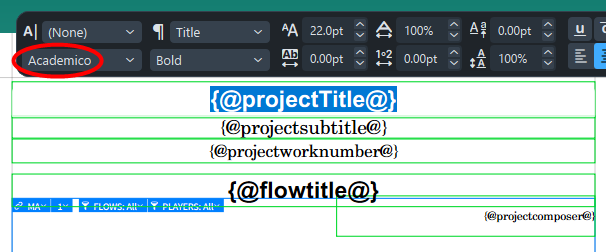
Since I installed Dorico 6, the Project and Flow titles in both Dorico 5 and Dorico 6 no longer appear in Academico, but in a sans serif font. The same happens with Gradual and Immediate Tempo Text.
When I open the file on my laptop, where Dorico 6 is not yet installed, everything appears normally in Academico.
I have a similar font issue with the Nepomuk font not showing any lower-case letters except in Italic. Regular shows only upper-case letters for that particular font. Itās been my default text font in Dorico for years now.
Iād suggest disabling/removing the SC versions of Nepomuk, as you can access the OpenType features now in the standard fonts. Then restart.
Yes, on Windows. After restarting the computer all is fine. For some reason it seems to be necessary to restart the computer after installing Dorico 6. I donāt remember this being the case with previous upgrades. Thanks, benwiggy!
In my case, deleting the SC versions, then rebooting, did nothing. Iām still getting all caps versions of Nepomuk.
From what I understand, itās more to do with Windows caching and handling of newly installed fonts.
Still not solved for me.
I re-installed the very latest version of the Nepomuk font, rebooted the computer (twice) and am still getting all-caps only on the āregularā version of the font. The font works fine in my other programs (word processor, layout software, publishing software, etcā¦) but for some reason, Dorico refuses to see the āregularā version of the font and only sees the small-caps version, or the Italic version.
Have you tried removing the Nepomuk SC font from your system? As @benwiggy said earlier in the thread, you donāt need it.
Iāve done that, and Iām still getting all caps when I use Nepomuk.
(and yes, I mentioned removing the SC versions of my fonts earlier in this thread)
Could the Paragraph Style be set to All Caps?
nope, itās set to regular.
Iām not sure if this issue is related, but in the Missing Fonts dialog Dorico 6 is telling me that some font styles were used in an earlier project that actually do not exist on my Windows system (e.g. only Regular is installed; Bold doesnāt exist):
But when I open this project in Dorico 5 and browse for the fonts used, I see that this particular font style is shown as available and freely selectable:
So, I opened the Character Map UWP app (an enhanced version of Windows Character Map), and it lists this font as only existing in a Regular style, but that three āSimulatedā styles, whatever that is, are available: Oblique, Bold and Bold Oblique. These Simulated styles no longer show in Dorico 6 and only the actual installed font style is shown and selectable.
This is super confusing, Iād love to understand whatās happening, if possible.
Thereās a bit about this in the Version History (and in the SN review).
Windowsā font management is very weird, to say the least. As youāll know, it insists that every font only has four styles: Regular, Bold, Italic, Bold Italic. Any other styles are counted as separate fonts, which each must have their own obligatory four styles. If a font doesnāt have all those four styles, Windows āsimulatesā them. (e.g. thickens all the strokes, or slants the characters).
Dorico 6 has decided to āenforceā a more Mac way of listing fonts, so that āMinion Bold Condensed Caption Italicā is the āBold Condensed Caption Italicā style of āMinionā, rather than the Bold Italic style of āMinion Condensed Captionā. (Or something.)
This makes moving files between iPad, Mac and Windows much easier. It also prevents problems in PDFs. But it also means that you canāt use simulated styles.
From what I can tell, there is no Bold font of Theano Modern. You may want to try the free font family āOld Standardā, which is similar (possibly by the same author), and which has a Bold and Italic.
Thanks, this is very helpful! This is a good opportunity to replace and updates fonts (such as this one, that I no longer use).
I would guess that simulated styles are what apps like Word and Excel and PowerPoint use on Windows to create Bold, Italic etc when those styles are not available in the installed font. Just out of curiosity - is this simulation not possible on a Word for Mac?
Itās not an option, no.
Ironically, the original āBeigeā MacOS used to allow synthesising styles, including Outlining and Shadow, but it looked obviously rubbish and dated as font technology improved, and it was didnāt make it into MacOS X.